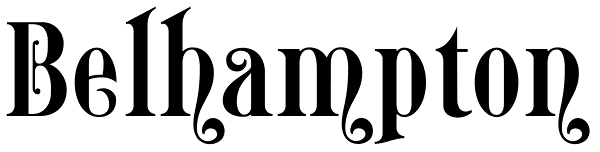
Belhampton
Belhampton is a lively display family, full of the spirit of the Edwardian era. Six typefaces are offered: regular, bold, light, oblique, embossed and outline. All include an extensive range of stylistic alternates and discretionary ligatures, as...
Belhampton Bold
Belhampton Oblique
Belhampton Light
Belhampton Outline
Belhampton
Belhampton Embossed